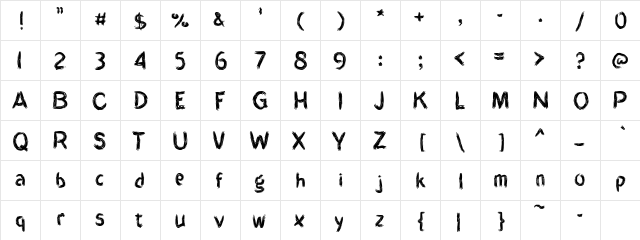
THE MYTH OF RIVER SOLO Font Preview
Design Context for THE MYTH OF RIVER SOLO Typeface
THE MYTH OF RIVER SOLO is a composed and adaptable typeface that performs quietly and consistently across a wide range of design contexts.
Pro Tip: Pair THE MYTH OF RIVER SOLO with a font of contrasting weight or personality to build a more expressive typographic hierarchy.